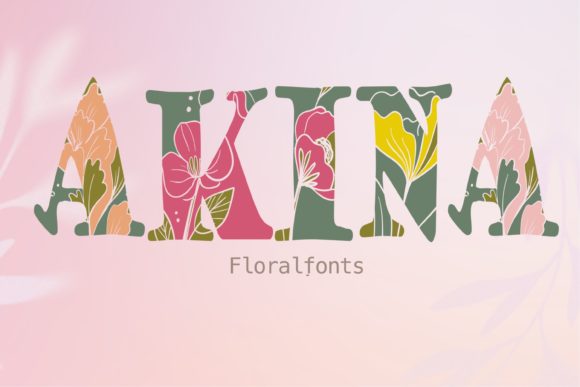
The Enchanting Akina Font: A Designer’s Dream for Wedding and Floral Projects
I still remember the time I was working on a wedding invitation project, and my client asked for a font that was elegant, feminine, and had a touch of whimsy. I scoured the internet, tried out countless fonts, but nothing seemed quite right. That was until I stumbled upon the Akina font. Its charming, ornamental design and floral uppercase letters instantly won me over. In this article, I’ll share my experience with Akina, its features, and how to make the most of this beautiful font.
An Honest Review of Akina Font
What I Love About Akina ✨
• ✅ Elegant and feminine design, perfect for wedding and floral projects
• ✅ Unique floral uppercase letters for a touch of whimsy
• ✅ Highly versatile, suitable for various design applications, including monograms, logos, invitations, branding, and more
• ✅ Easy to read and works well in both digital and print formats
While Akina is an exceptional font, there are a few things to keep in mind:
• 🤔 Limited use of lowercase letters, which may not be ideal for body text
• ⚠️ May not be suitable for very small font sizes, as details may get lost
A Practical Guide to Using Akina Font
3. Experiment with OpenType features, such as ligatures and stylistic alternates, to add a personal touch to your design
3. Explore the font’s glyphs and OpenType features, such as swashes and alternates, to add elegance to your design
The Story Behind Akina Font
Akina font was designed with the intention of creating a beautiful, feminine typeface that would evoke the elegance of floral arrangements. The designer aimed to craft a font that would be perfect for wedding invitations, monograms, and other special occasions. With its unique floral uppercase letters and elegant design, Akina font has become a popular choice among designers and crafters.
Q: What is the best use for Akina font?
A: Akina font is ideal for wedding invitations, monograms, logos, branding, packaging, and other designs that require a touch of elegance and whimsy.
Q: Is Akina font suitable for body text?
A: While Akina font is beautiful, it’s not ideal for body text due to its limited use of lowercase letters and ornamental design. It’s best used for headings, titles, and other display text.